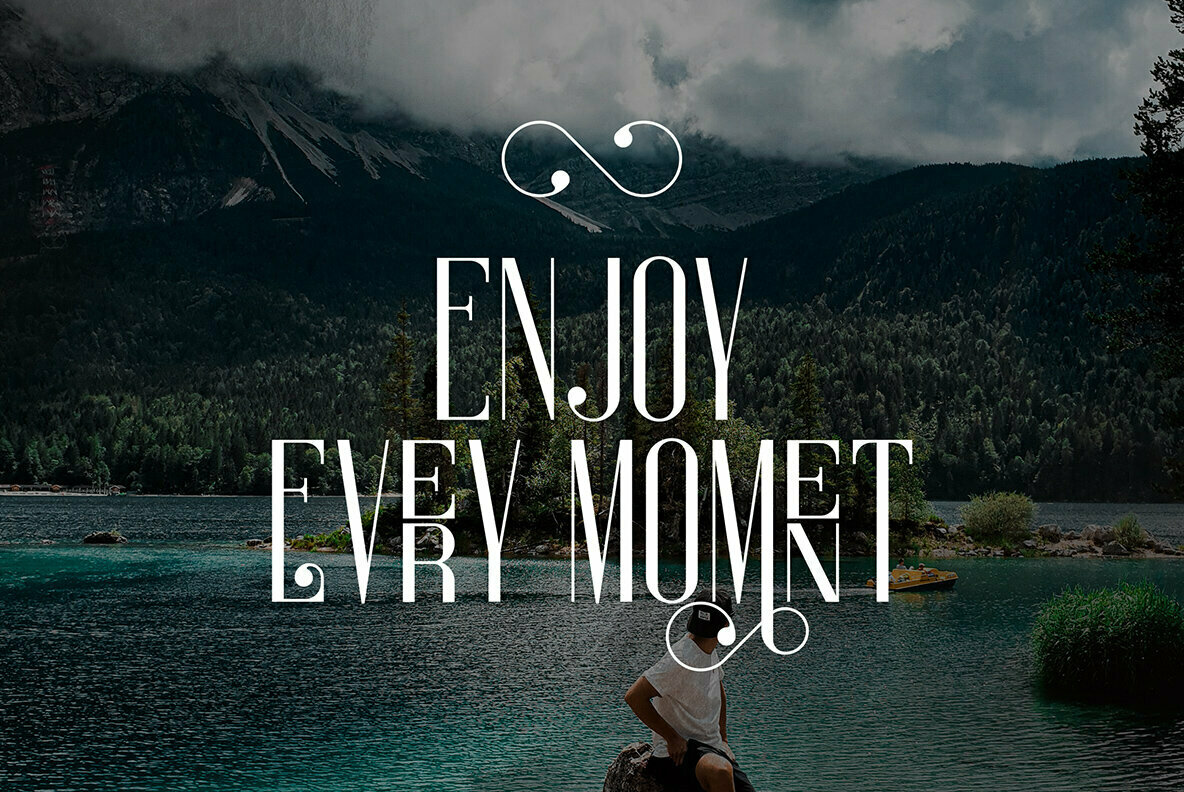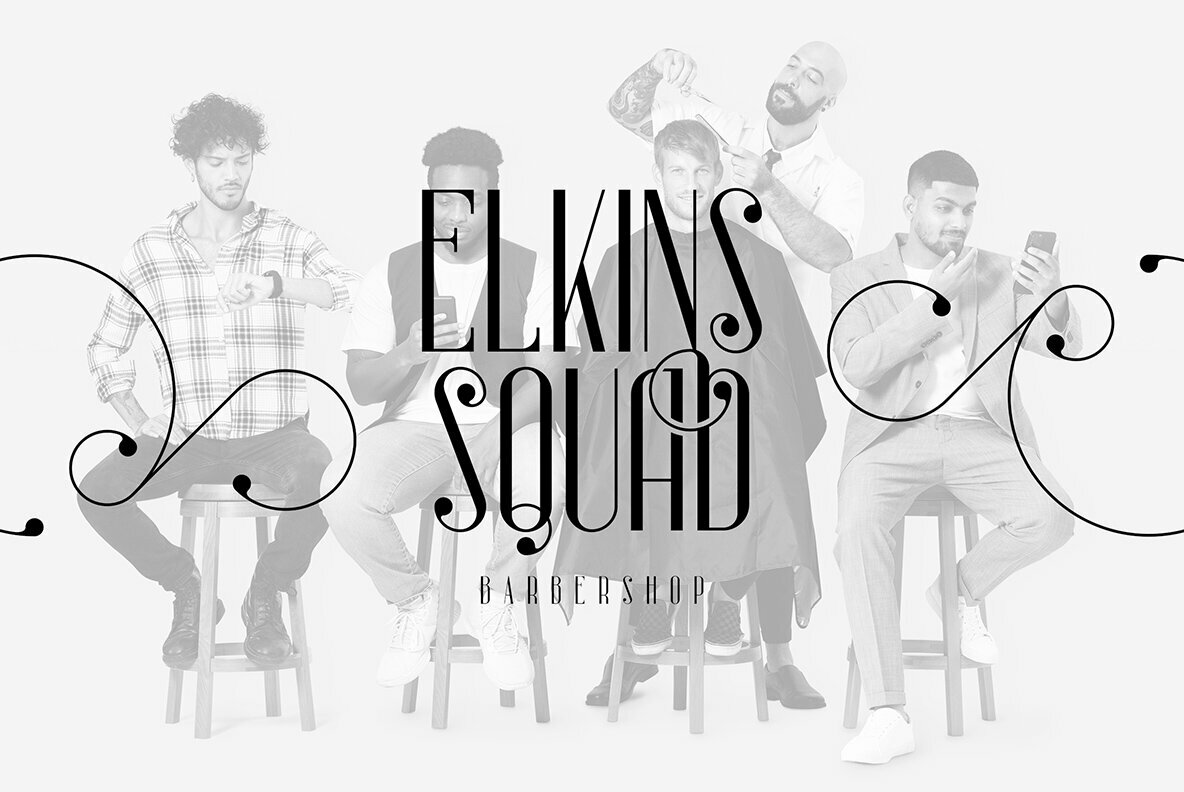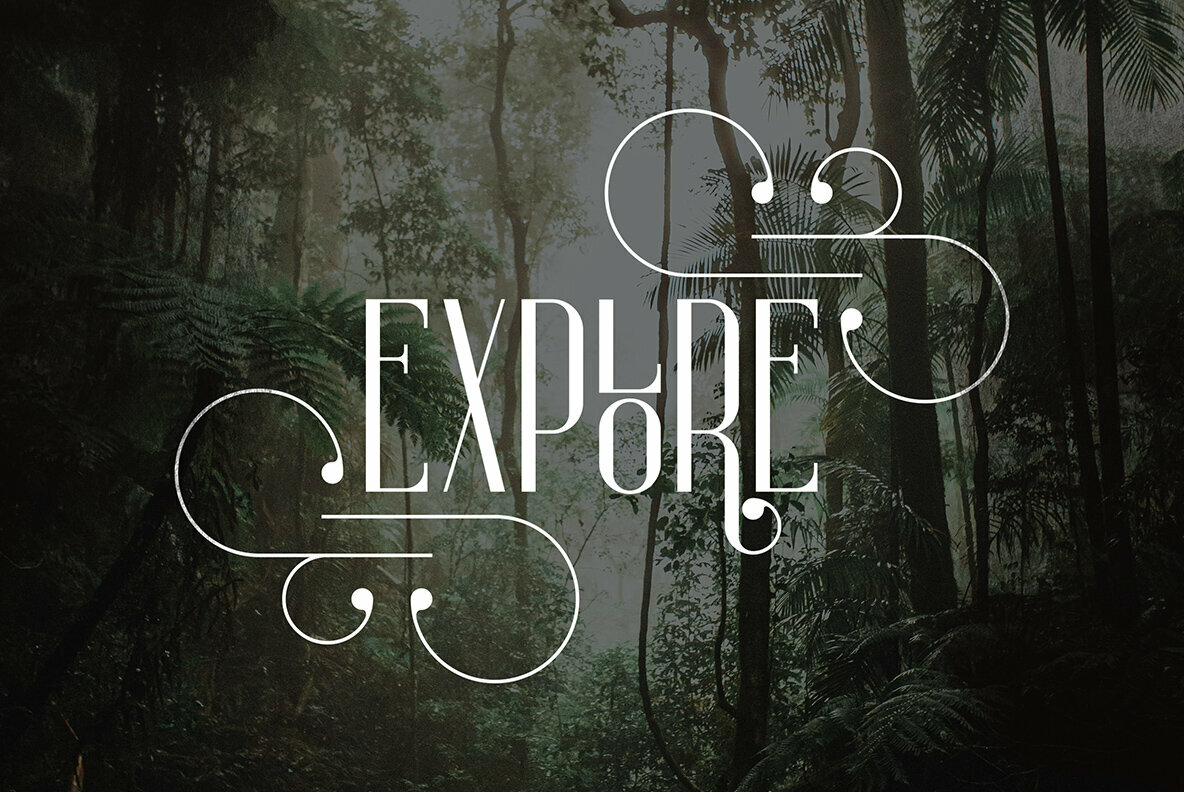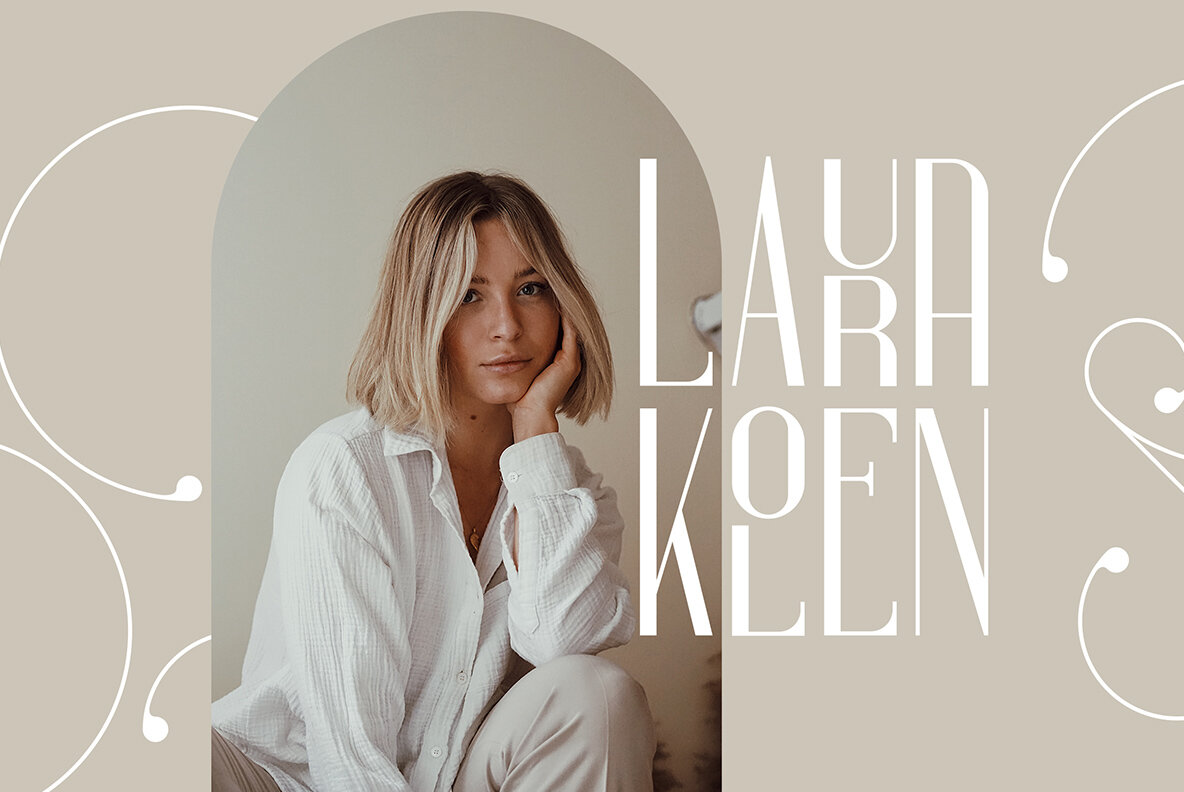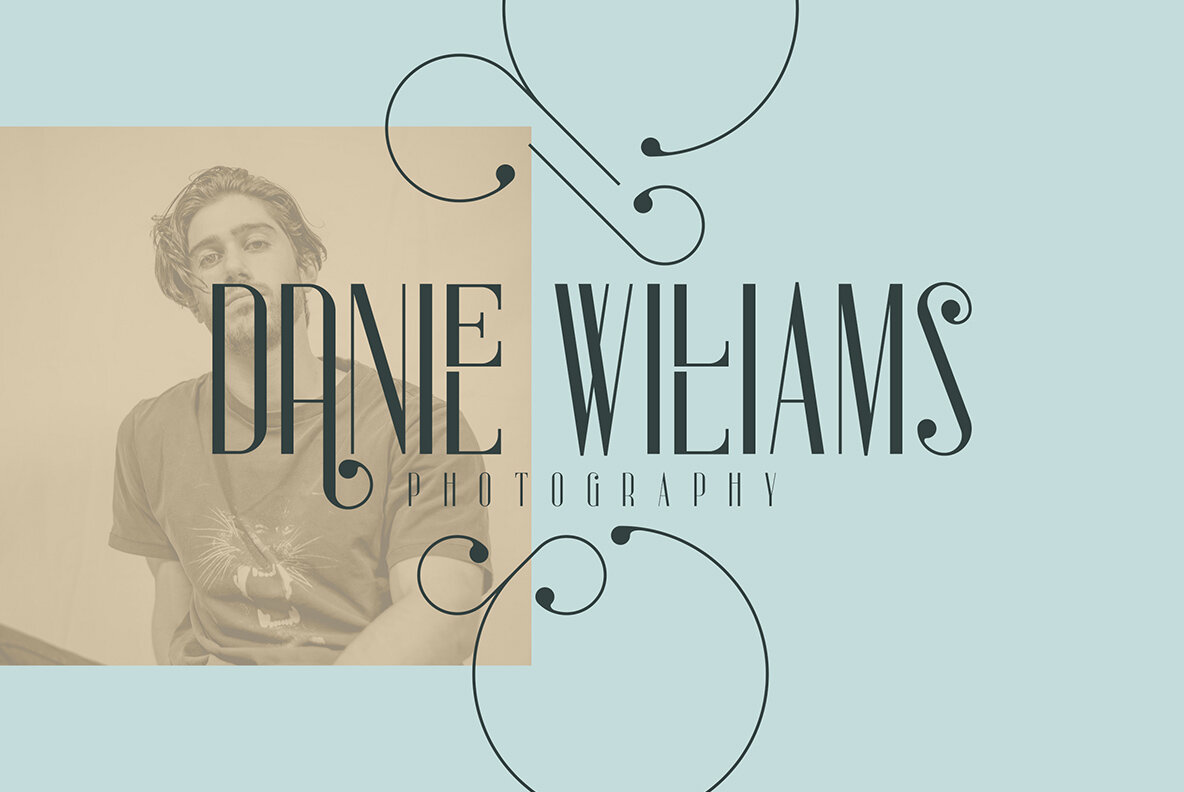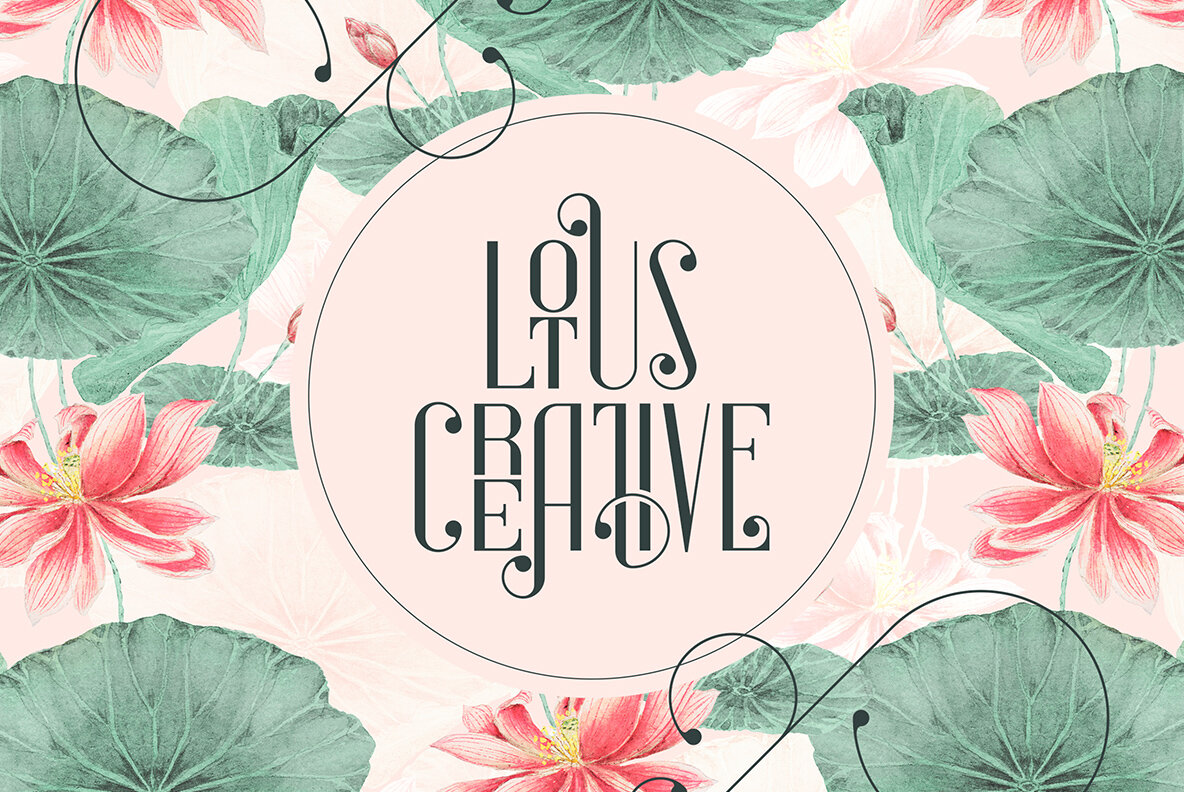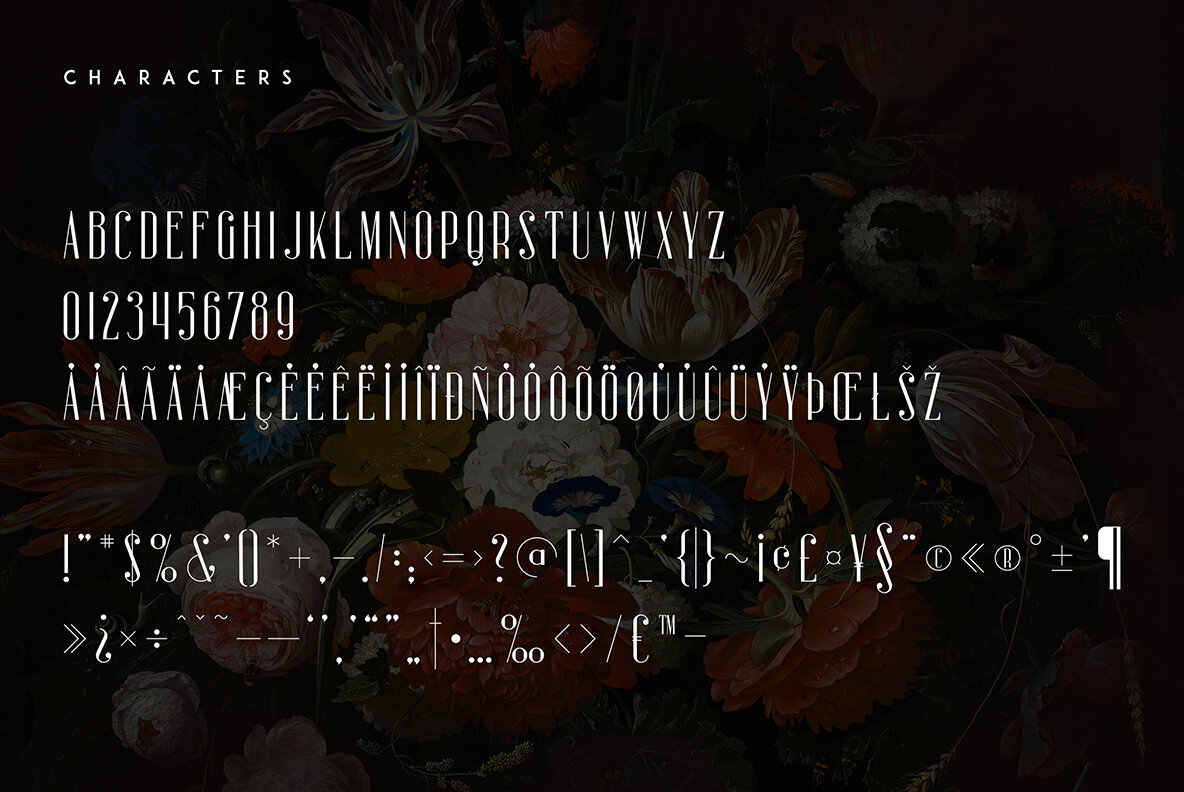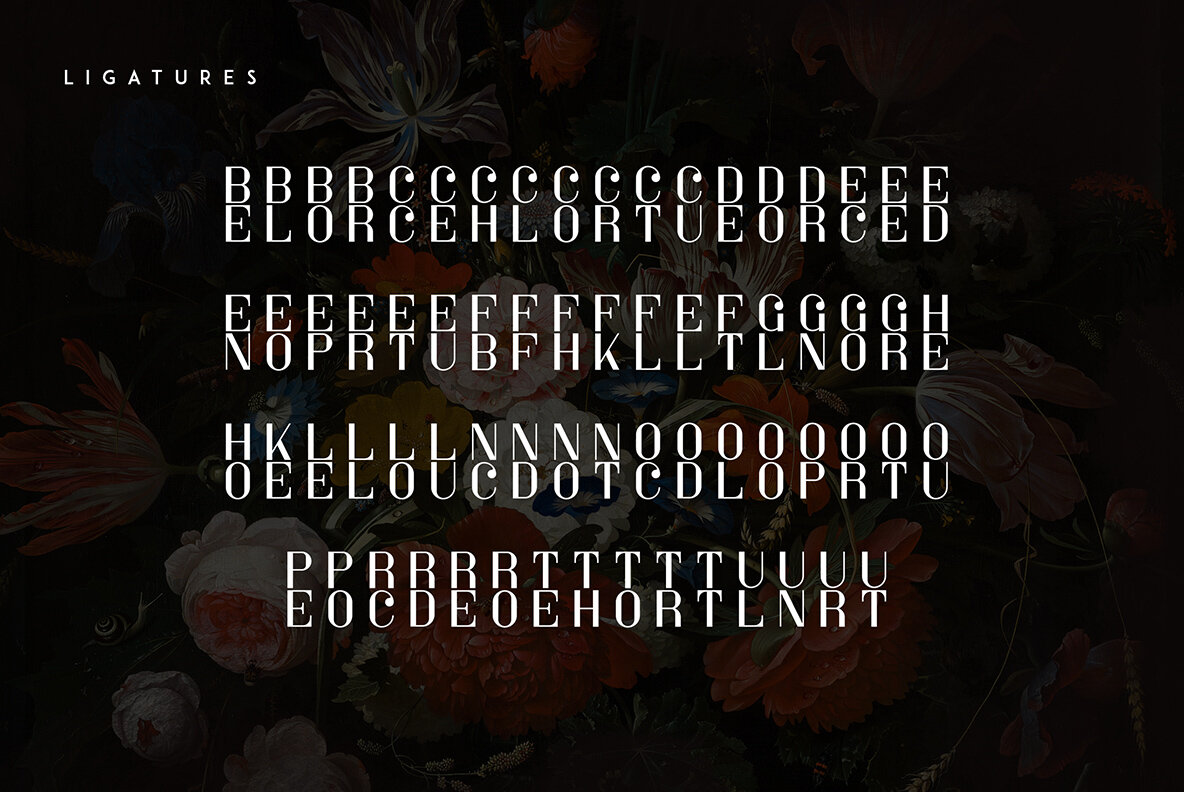
Sorcha Font
Sorcha, crafted by VP Creative Shop, is a bold and versatile display font designed to captivate with its vintage appeal and robust character. Enriched with ligature glyphs, alternates, and swashes, this font provides extensive multilingual support, making it a valuable asset for your creative endeavors. Sorcha's versatility shines in a myriad of applications. Whether you're working on branding projects, designing homeware, creating product packaging, or crafting magazine headers, this font serves as an excellent choice. Additionally, it effortlessly enhances text overlays on any background image, blending style with functionality. Features:Sorcha: A Vintage Display Font with Swashes